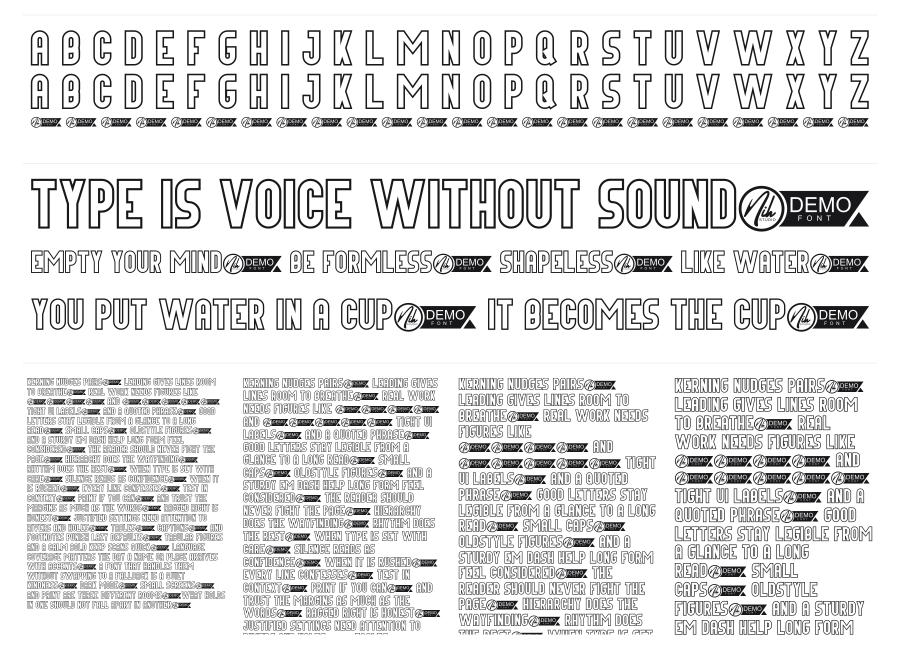
Houze
Houze is a bold condensed outline sans-serif with a thick double-stroke construction and subtly rounded corners. The heavy, uniform strokes give it a strong industrial presence that reads well on posters, jerseys, and packaging. It sits comfortably in the visual language of sports, street culture, and urban branding.